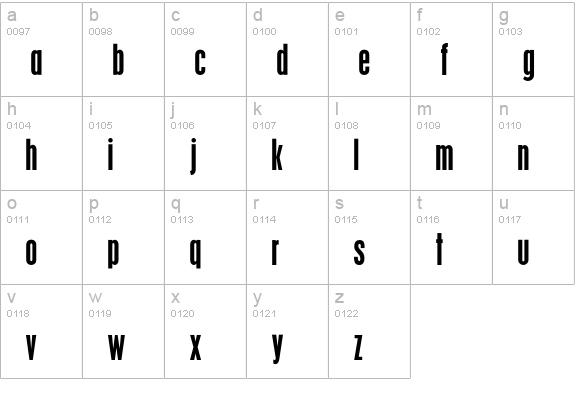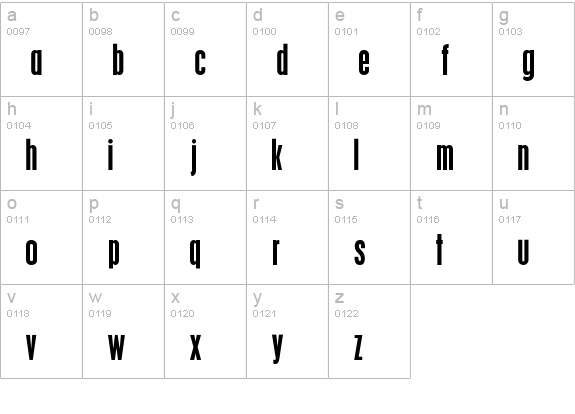
AFCamberwell-One Font Details
AFCamberwell-One font is a stunning display typeface that exudes elegance and sophistication. With its unique blend of classic and modern elements, this font is perfect for adding a touch of style to any design project. Its sleek lines and graceful curves give it a timeless appeal that is sure to make your work stand out. And the best part? AFCamberwell-One font is completely free to download! Yes, you read that right – you can get your hands on this beautiful font without spending a dime. Simply head over to FontsMarket.com and start using this exquisite typeface in your projects today. Whether you're designing a logo, creating invitations, or crafting a brochure, AFCamberwell-One font is the perfect choice to elevate your work to the next level. Download it now and let your creativity shine with this gorgeous and versatile font.